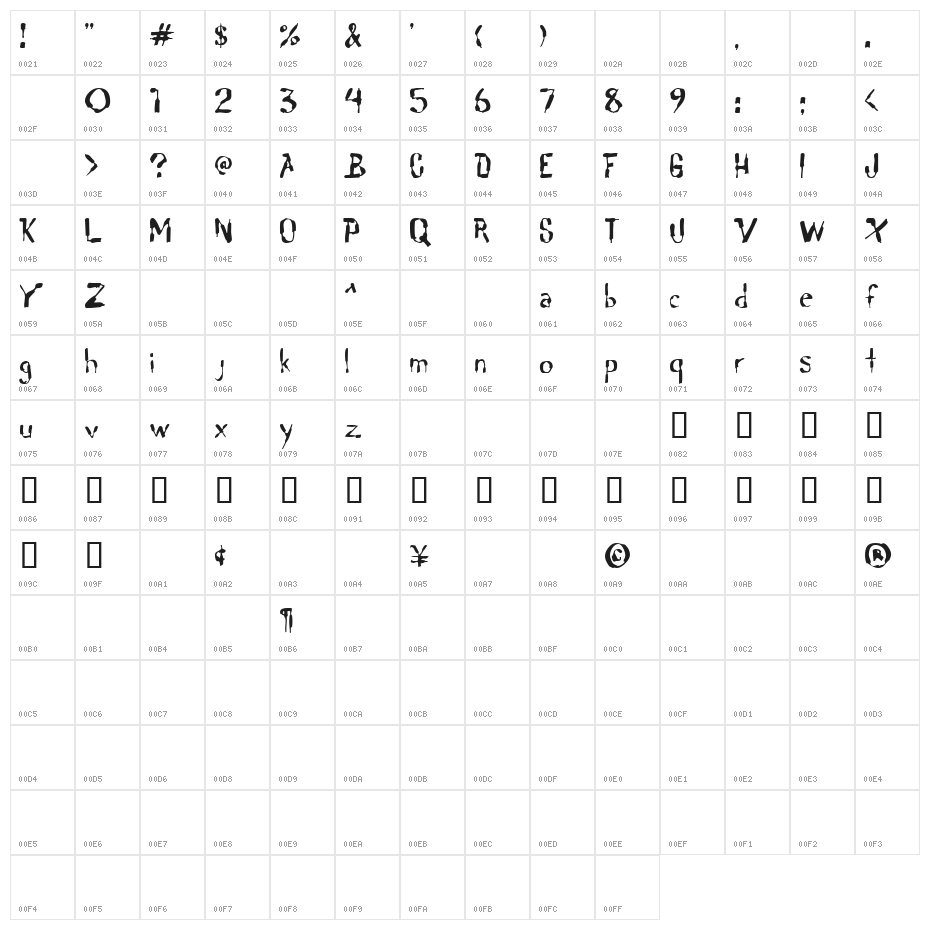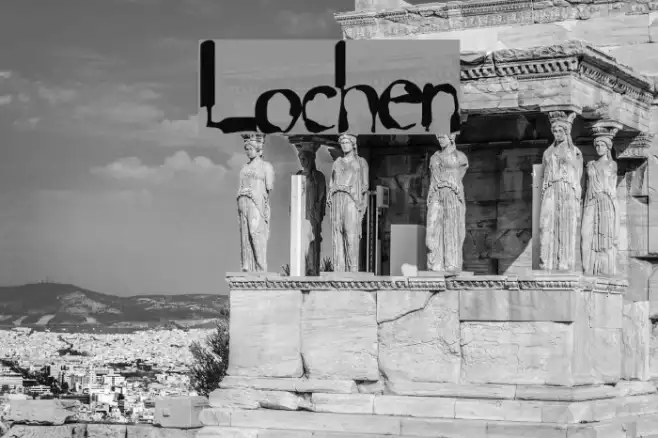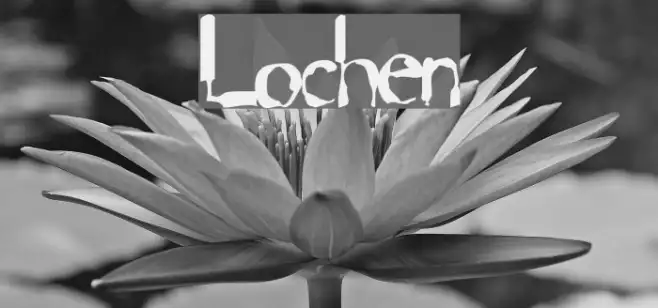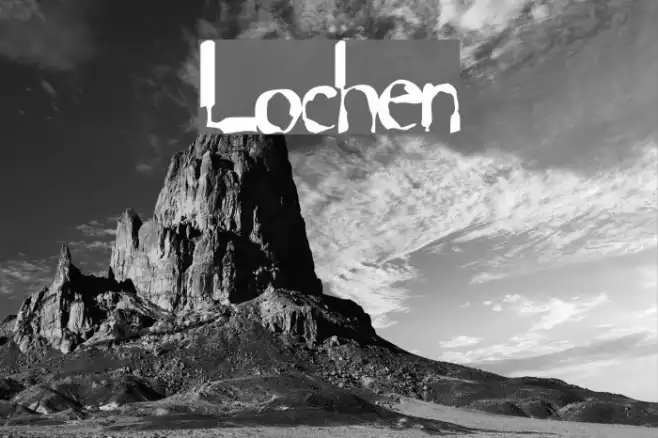
Lochen Font
Lochen Description
This font features a bold, artistic style with a distressed and irregular appearance, reminiscent of brush strokes or ink splatters. The characters have a unique, hand-crafted feel, with varying thickness and a slightly chaotic structure that adds a dynamic and edgy look. The uppercase and lowercase letters maintain a consistent style, while the numbers and special characters complement the overall aesthetic. This font is ideal for projects that require a bold statement or an artistic touch, such as posters, album covers, or creative branding.
| Overall Style | Artistic, Edgy, Dynamic |
| Proposed Projects | Ideal for posters, album covers, creative branding, and artistic projects. |